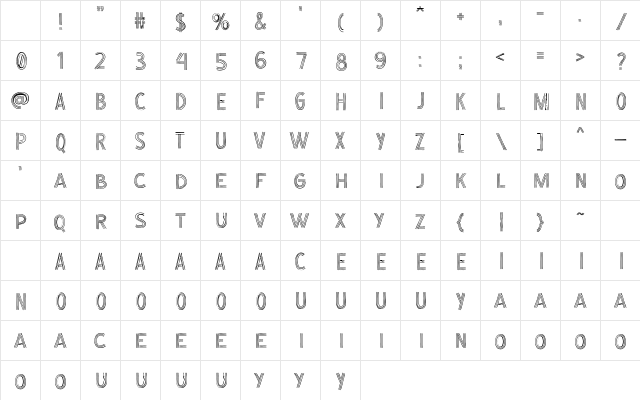
Complete NEONIZED Regular glyph index. Displaying only characters natively supported by NEONIZED Regular font.
NEONIZED has a distinctly futuristic character, with geometric precision and clean angles that feel at home in technology, gaming, and sci-fi contexts.